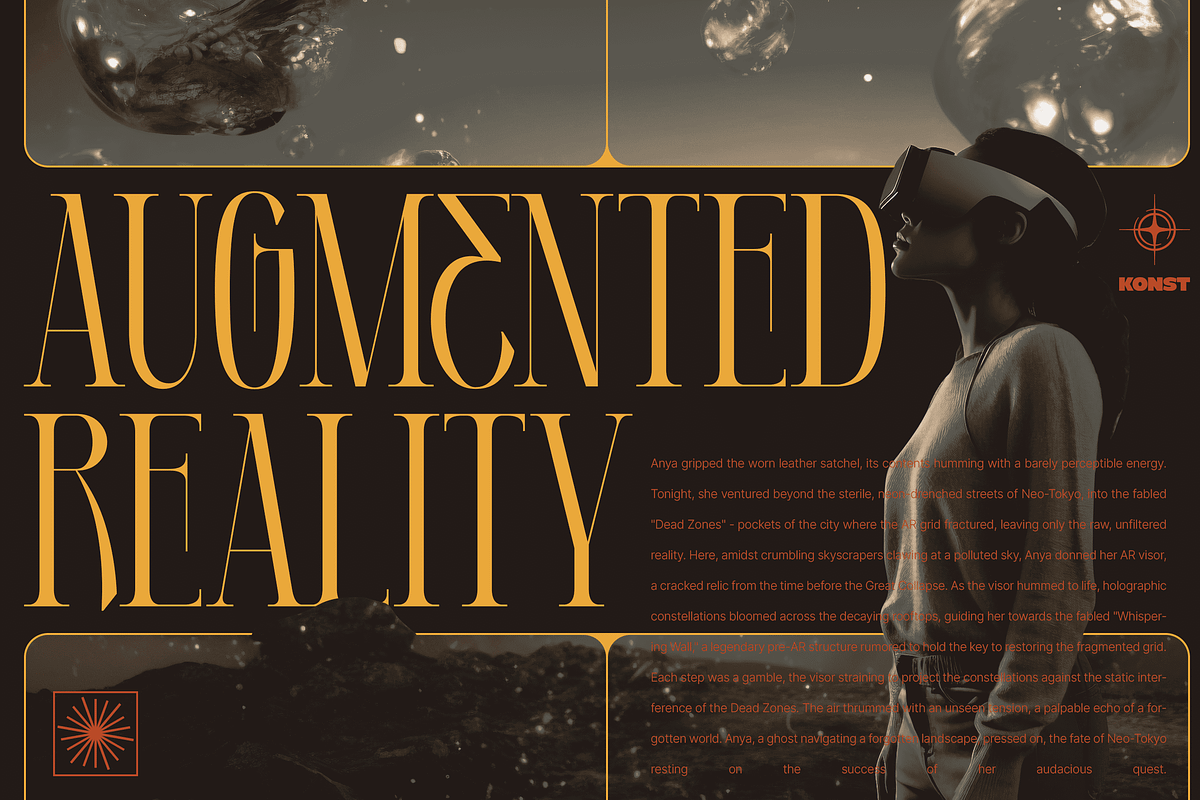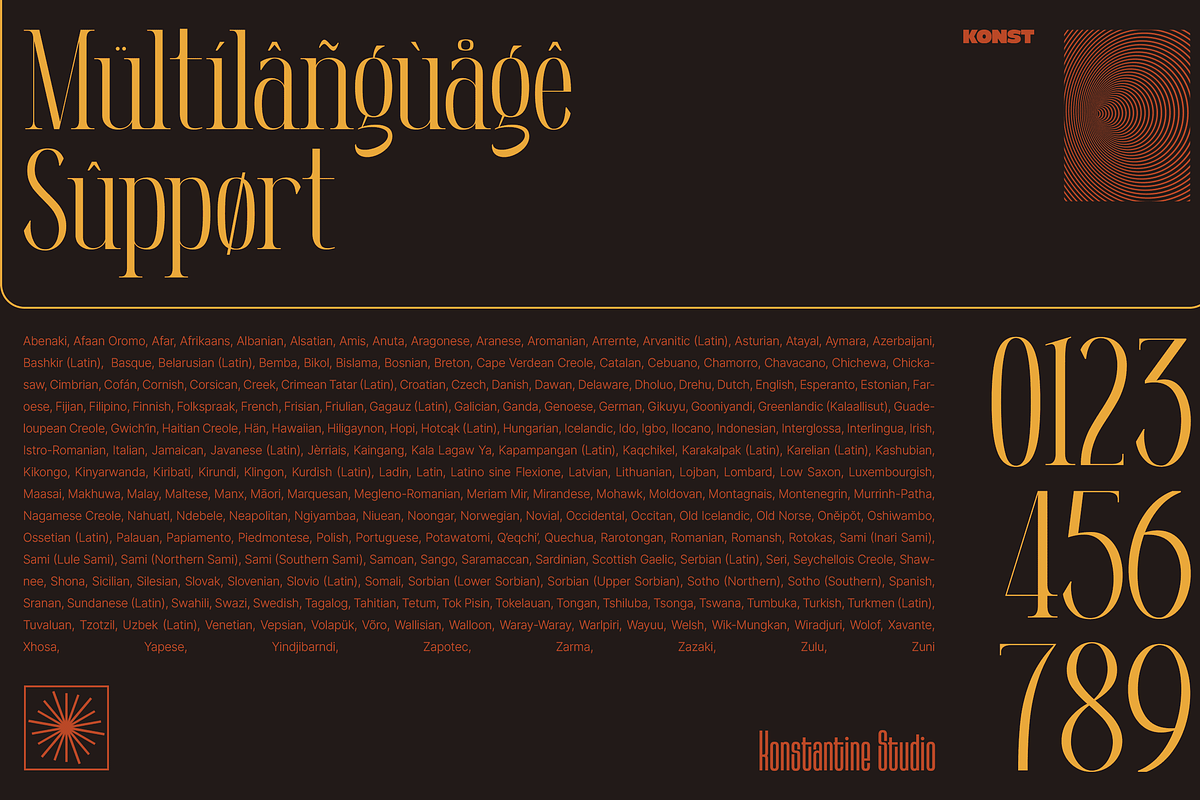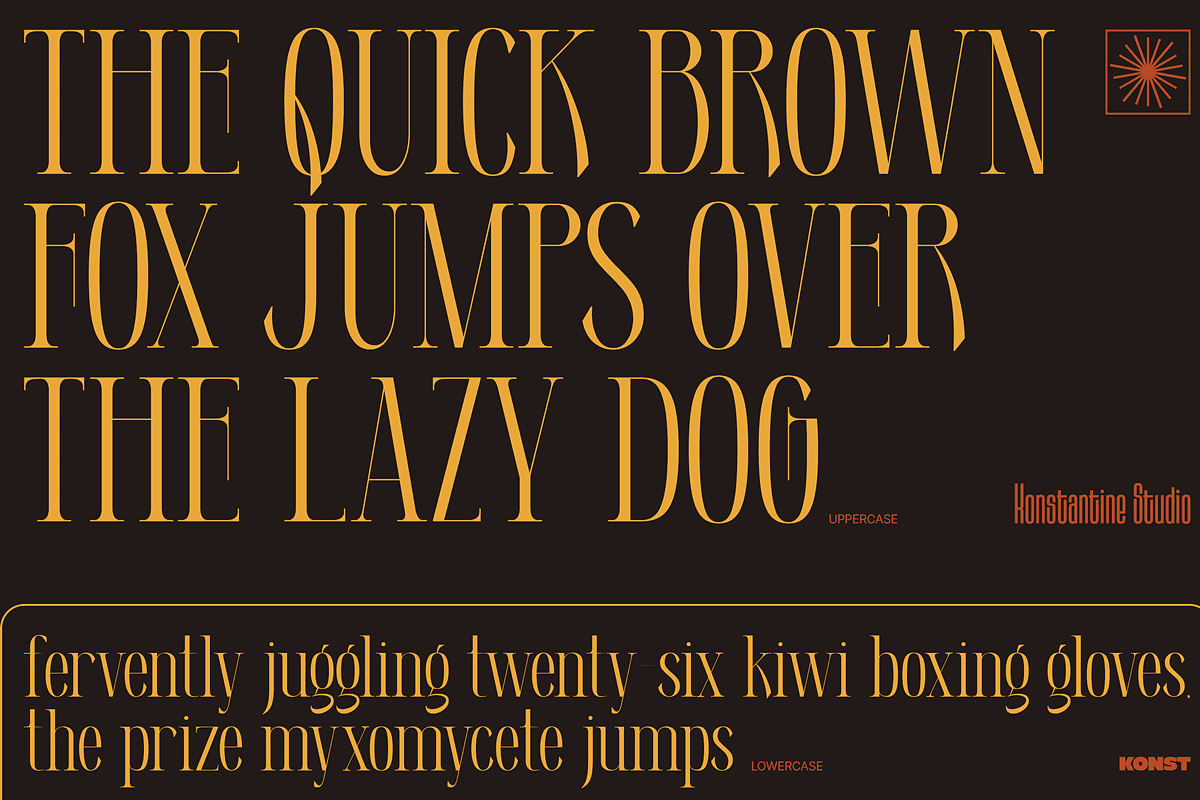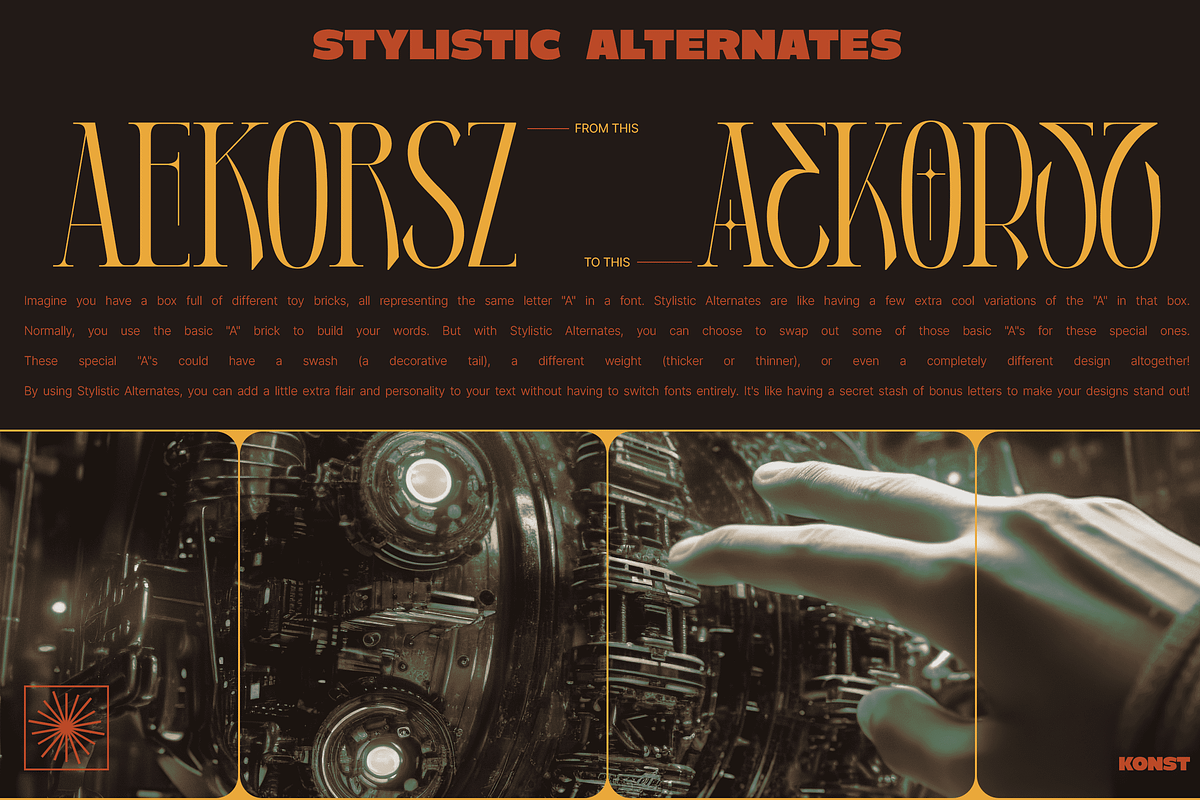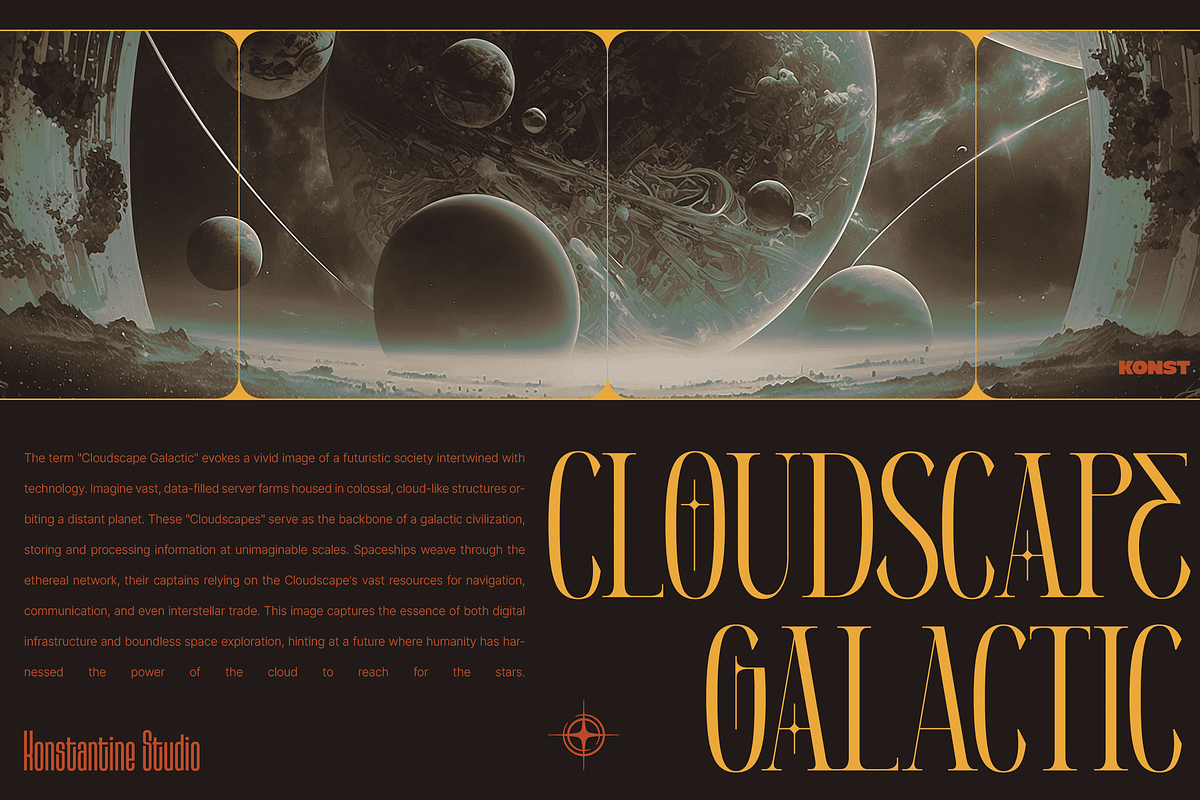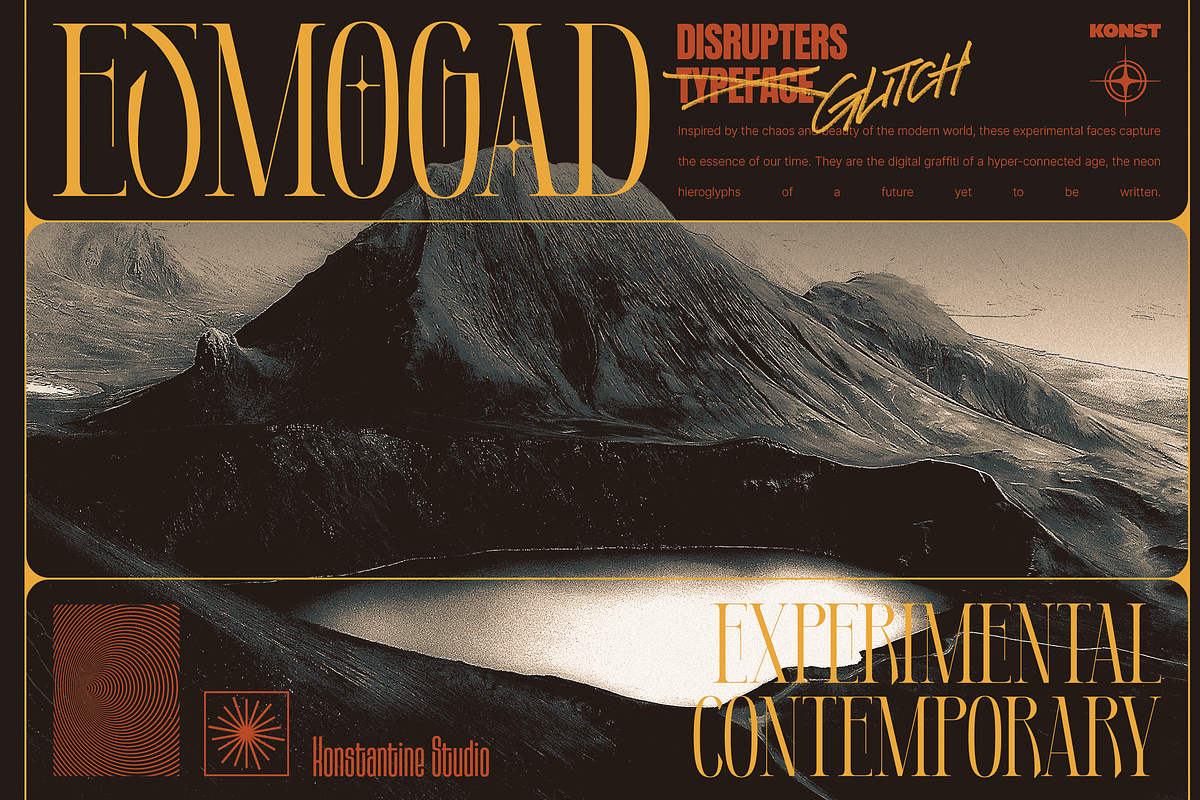
Esmogad - Futuristic Serif Fonts
Imagine a world where typography bends to your will, where serifs morph and twist like cityscapes bathed in neon. This isn't science fiction; it's Esmogad. A hypersonic leap into the next generation of typography, inspired by the avant-garde visuals and electrifying energy that are redefining design.
Esmogad shatters expectations with its experimental serifs that twist and turn like neon signs on a Seoul skyscraper. Each letter is a cosmic explosion of creativity, ready to launch your designs into the next dimension.
Embrace the future with Esmogad's unconventional serifs, bold energy, and cutting-edge style. Be a trendsetter—get Esmogad today and write the future, one revolutionary letter at a time!